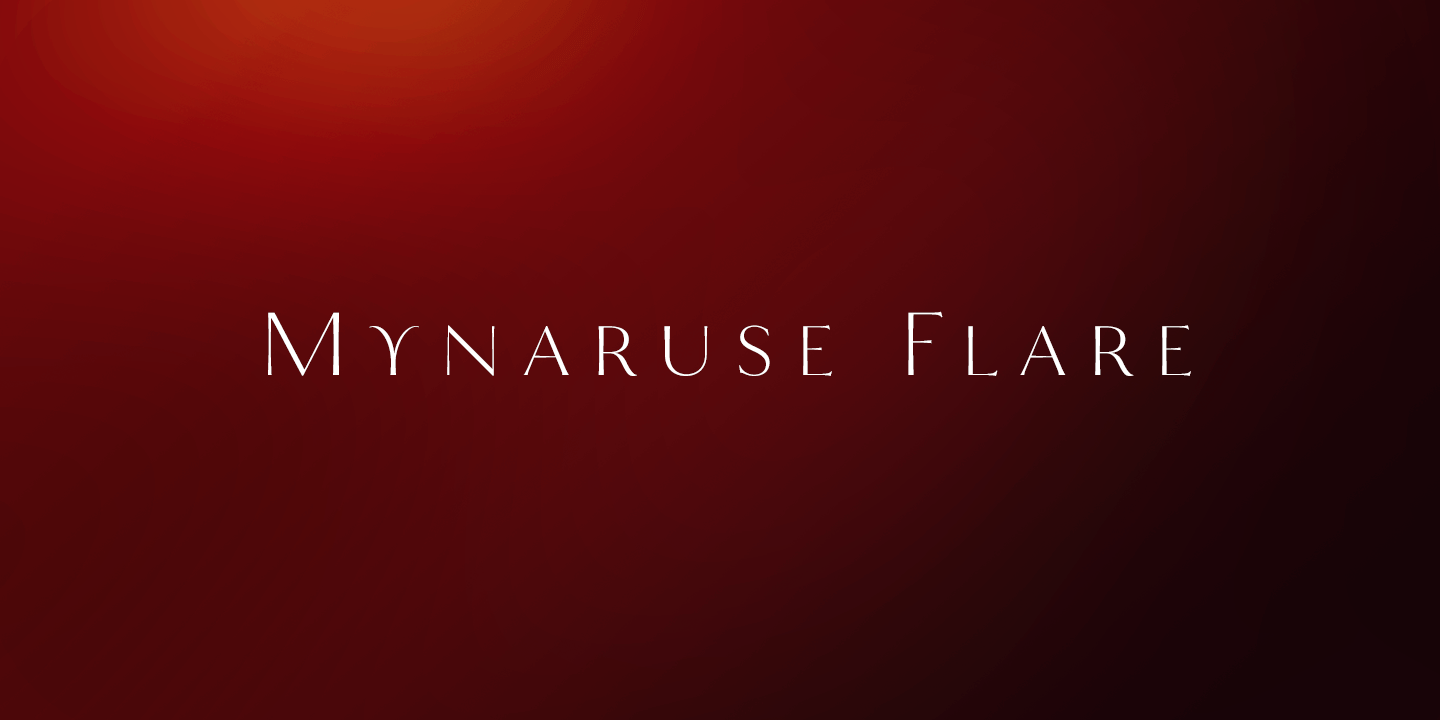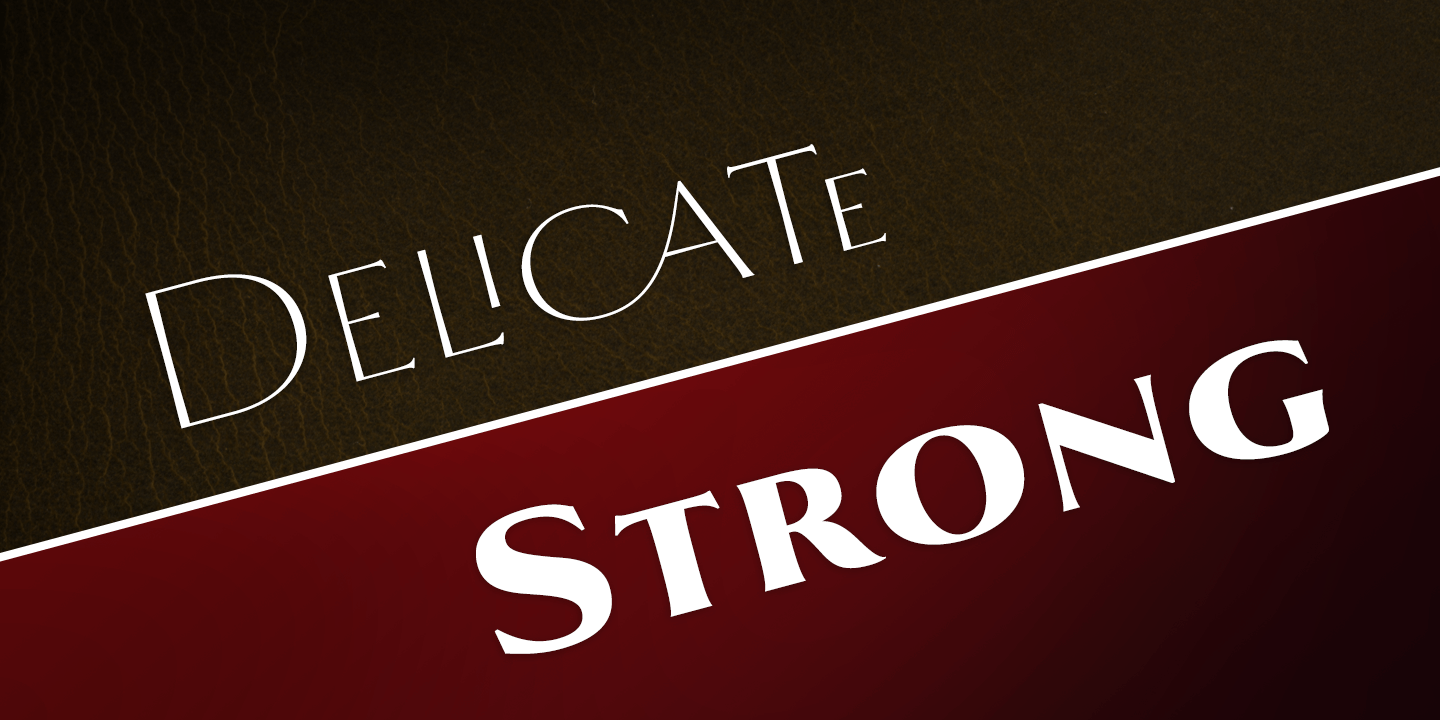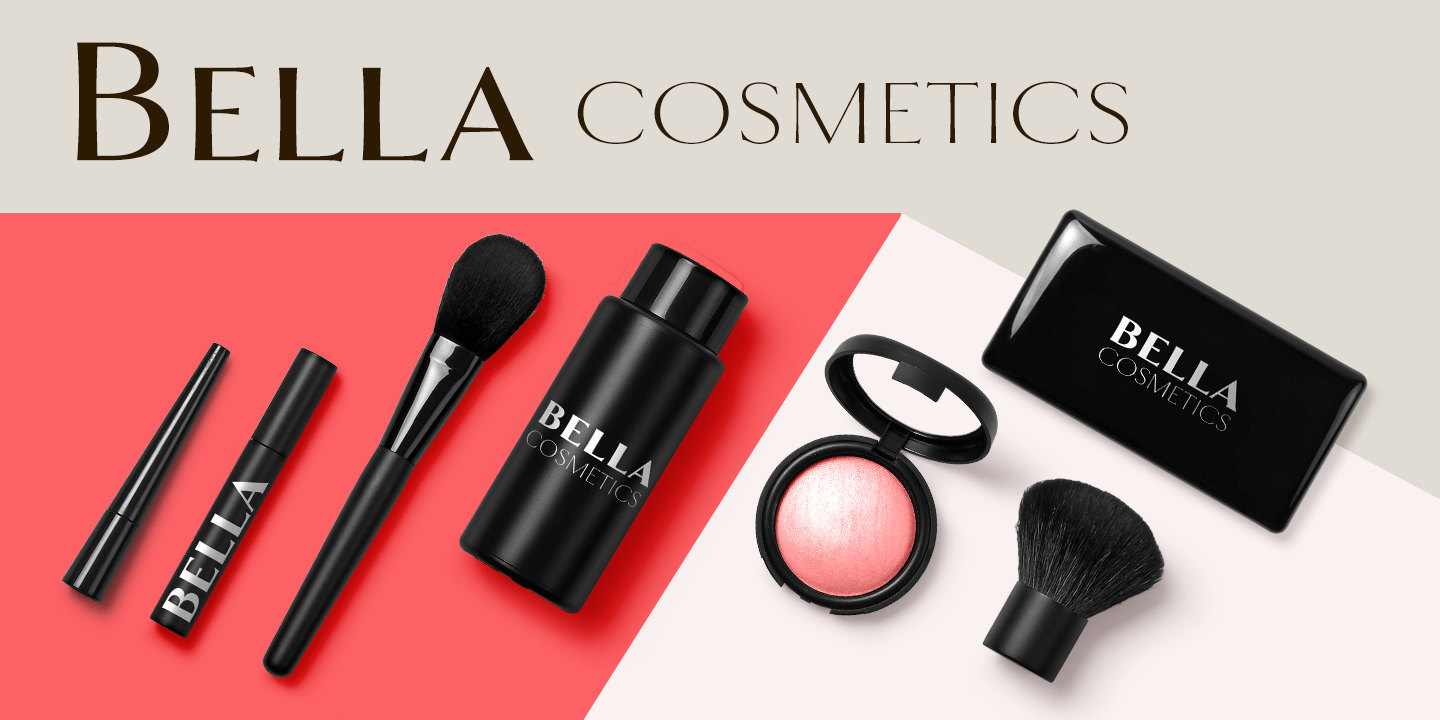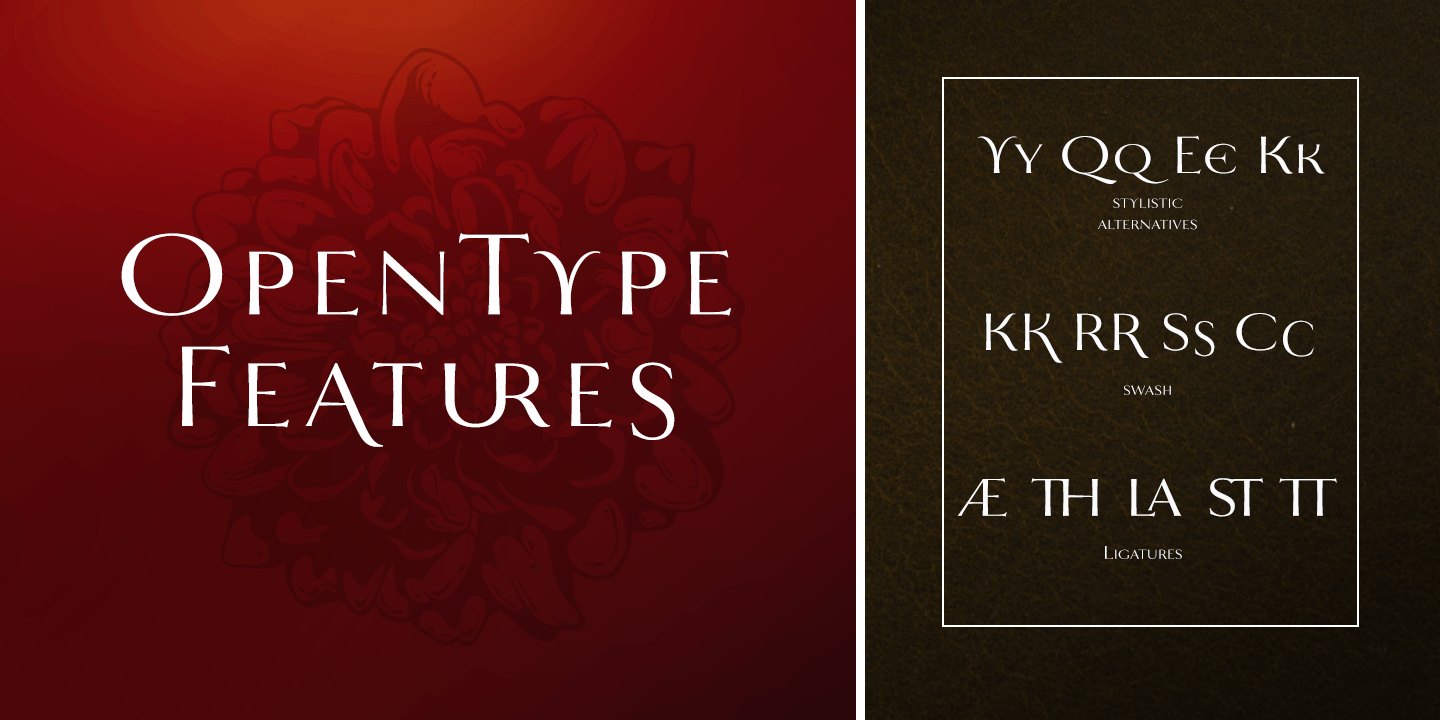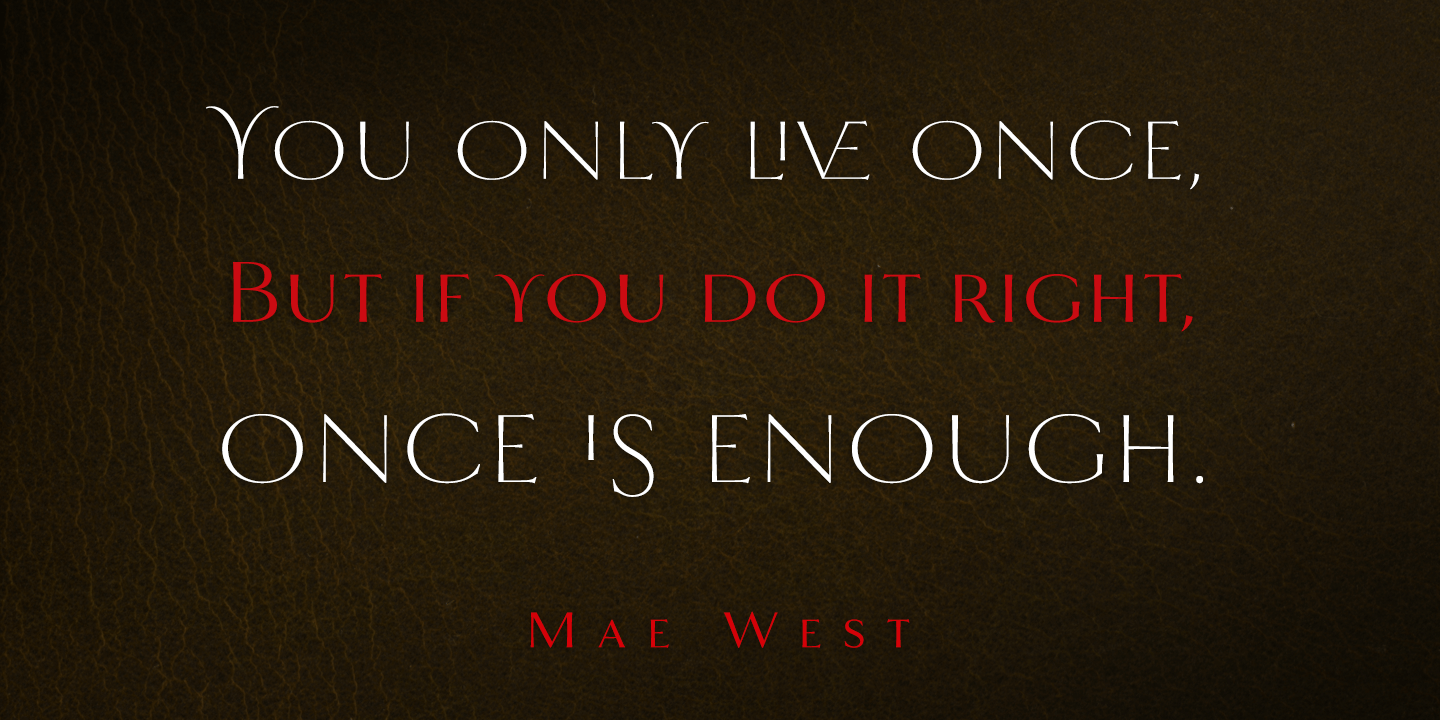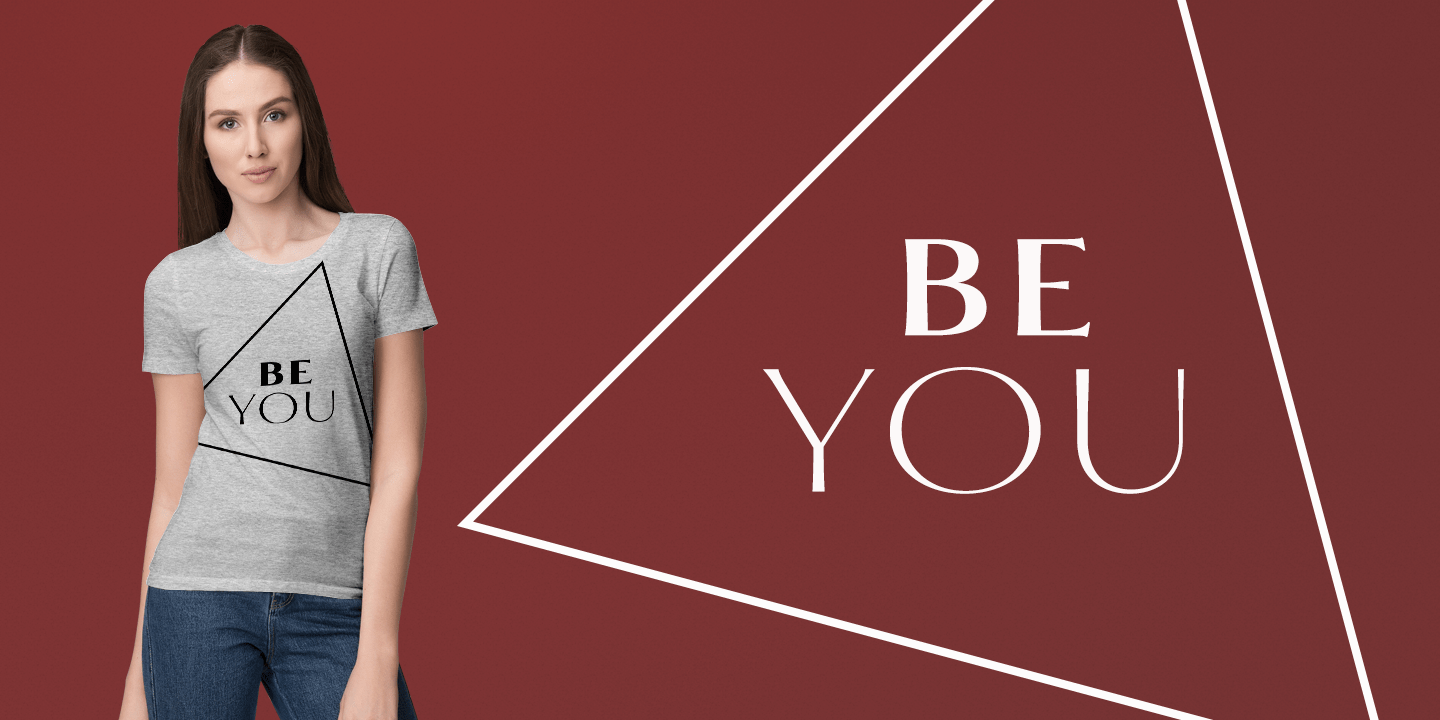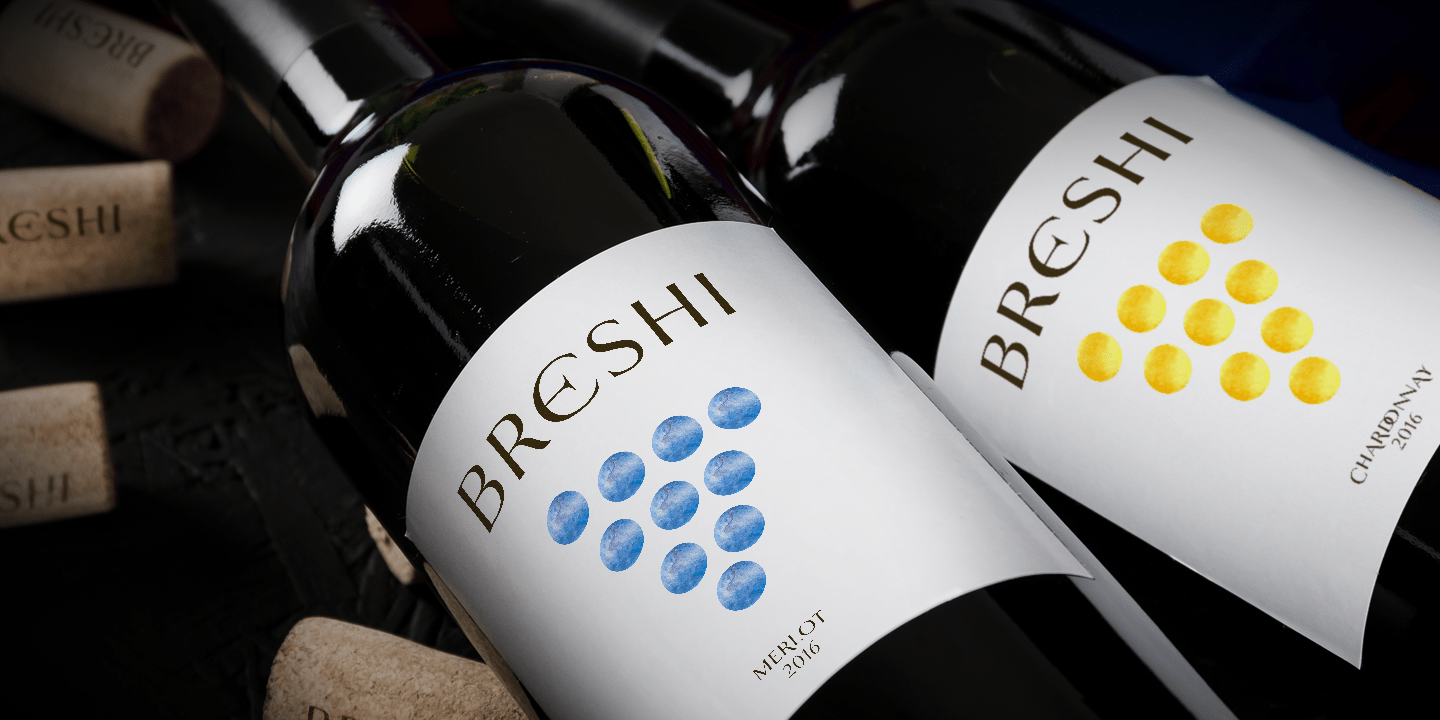
Mynaruse Flare
Mynaruse Flare is a new version of the Mynaruse superfamily. This version eliminates the elongated serifs of the original, and instead stems end with a flare. You will find that the thinner weights are delicate and beautiful, while the heavier weights provide impact and strength. Mynaruse is inspired by the elegant and regal Roman inscriptional types. The face shines in environments that require elegance and splendor. The eight weights of Mynaruse flare range from a subtle, delicate thin to a heavy and powerful Black weight.
Mynaruse Flare includes many useful OpenType features, including a set of swash alternates, alternate titling forms, ligatures and miscellaneous alternates.
This is a titling font that is ideal for logotypes, posters or other high-end luxury applications.